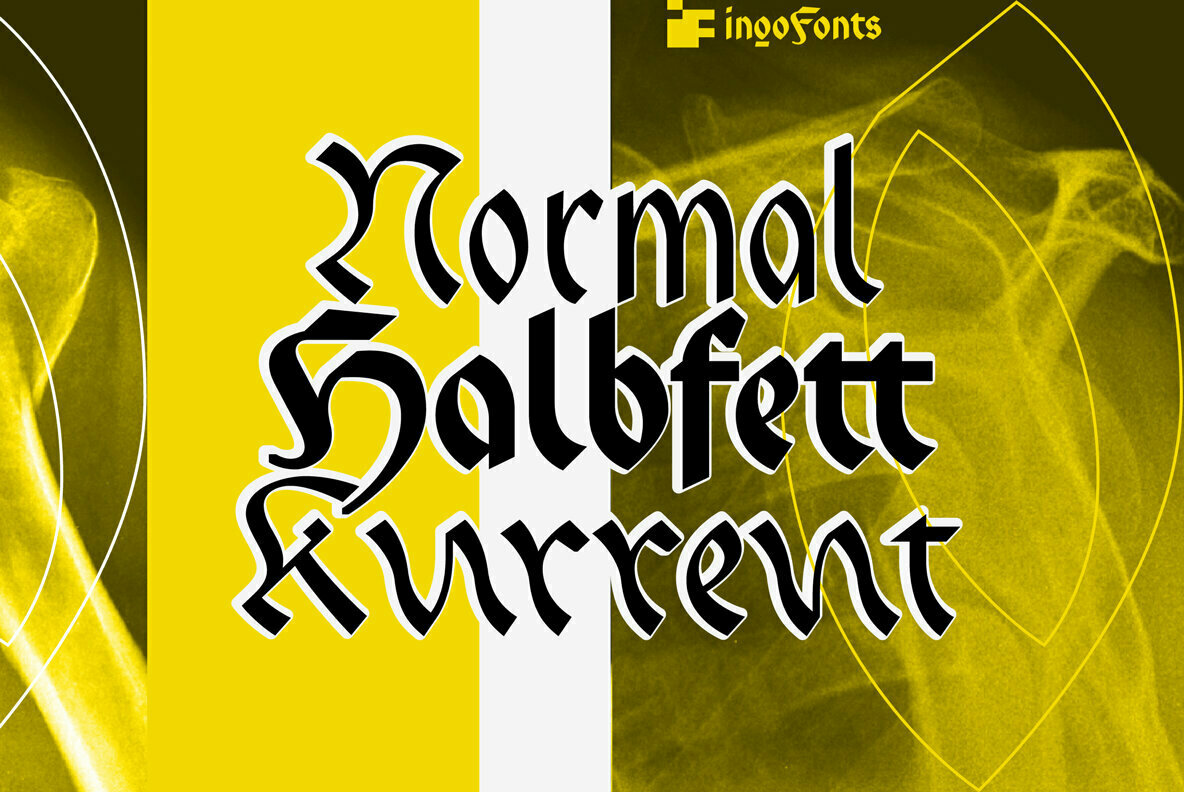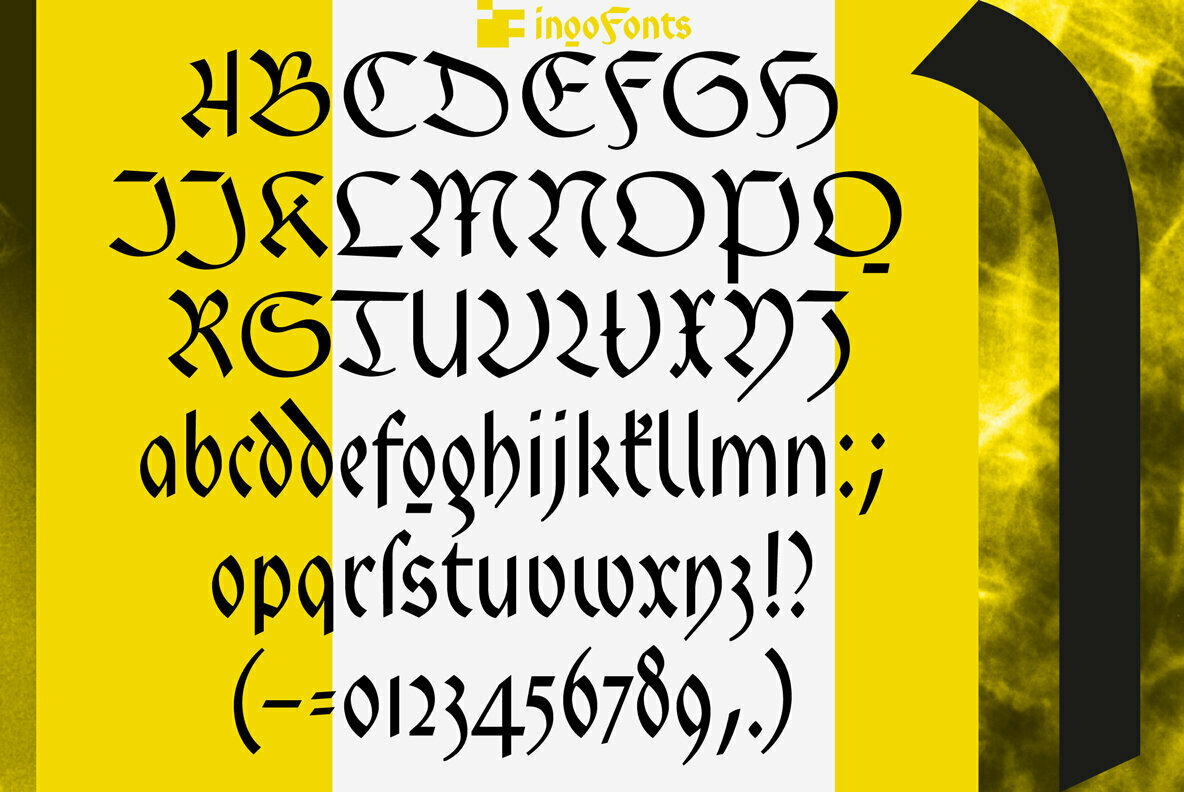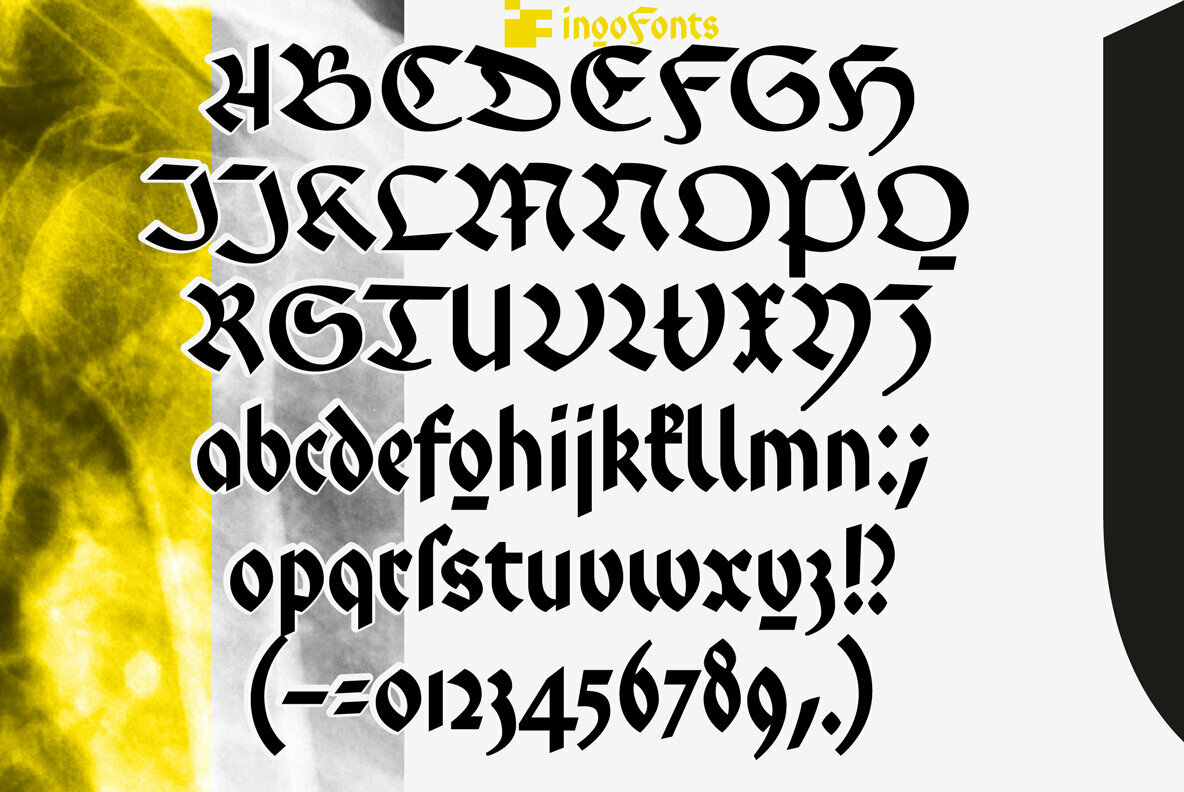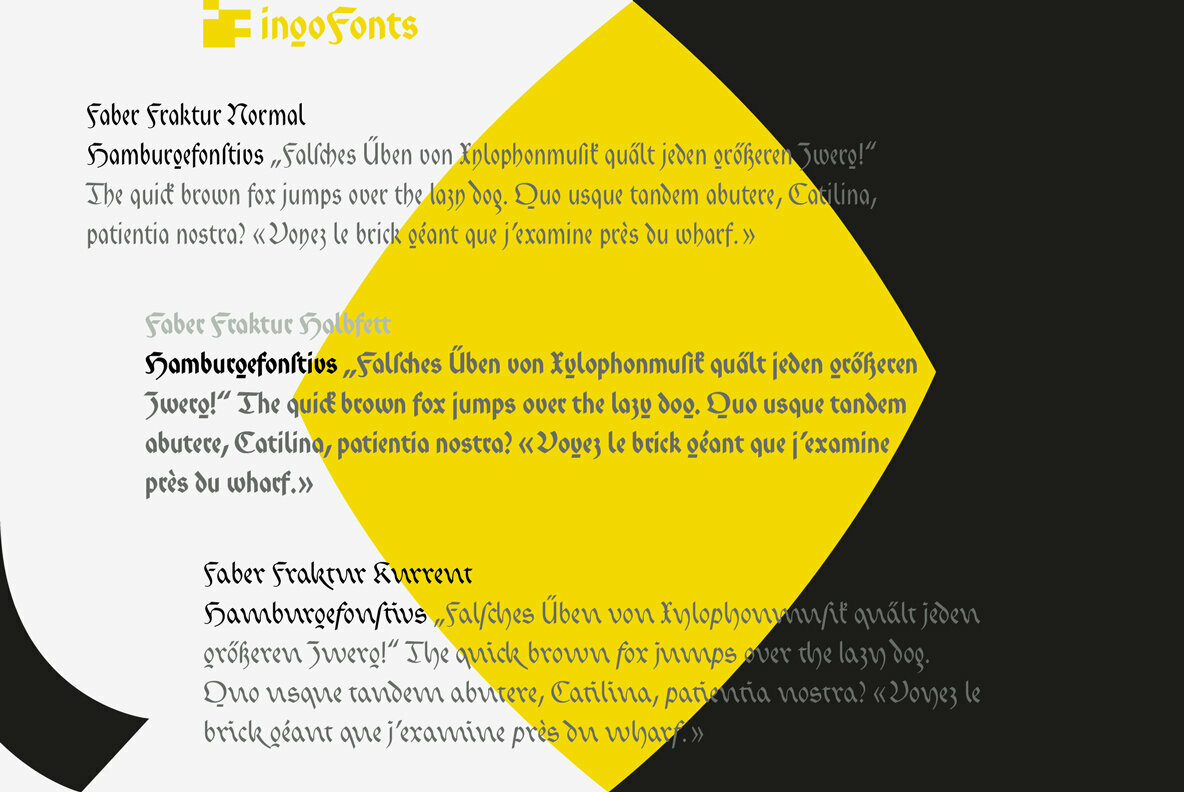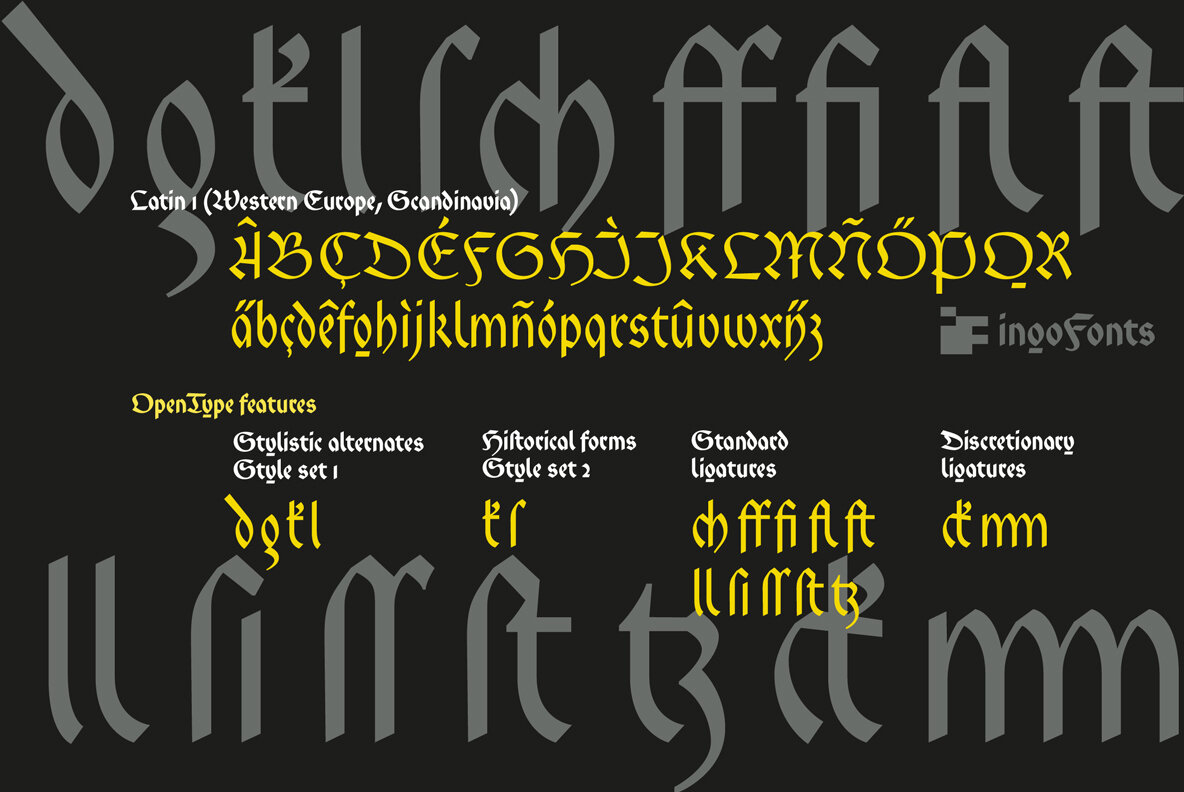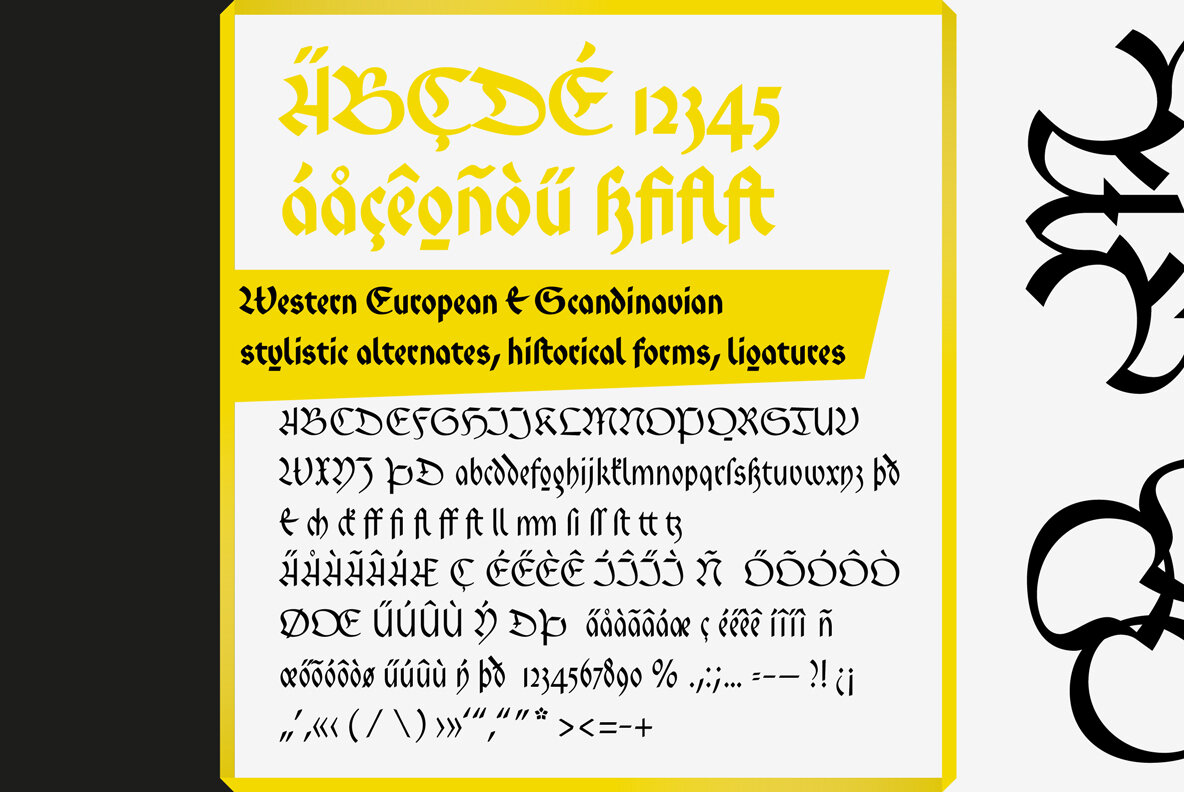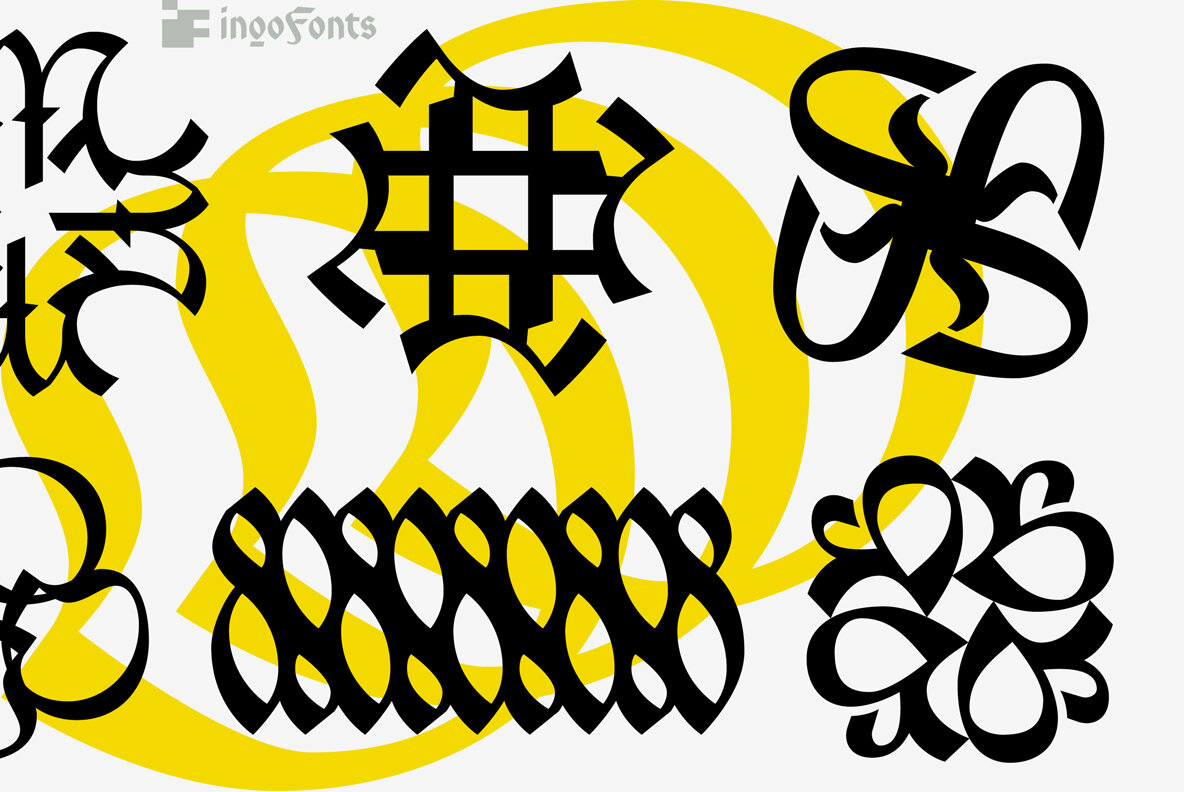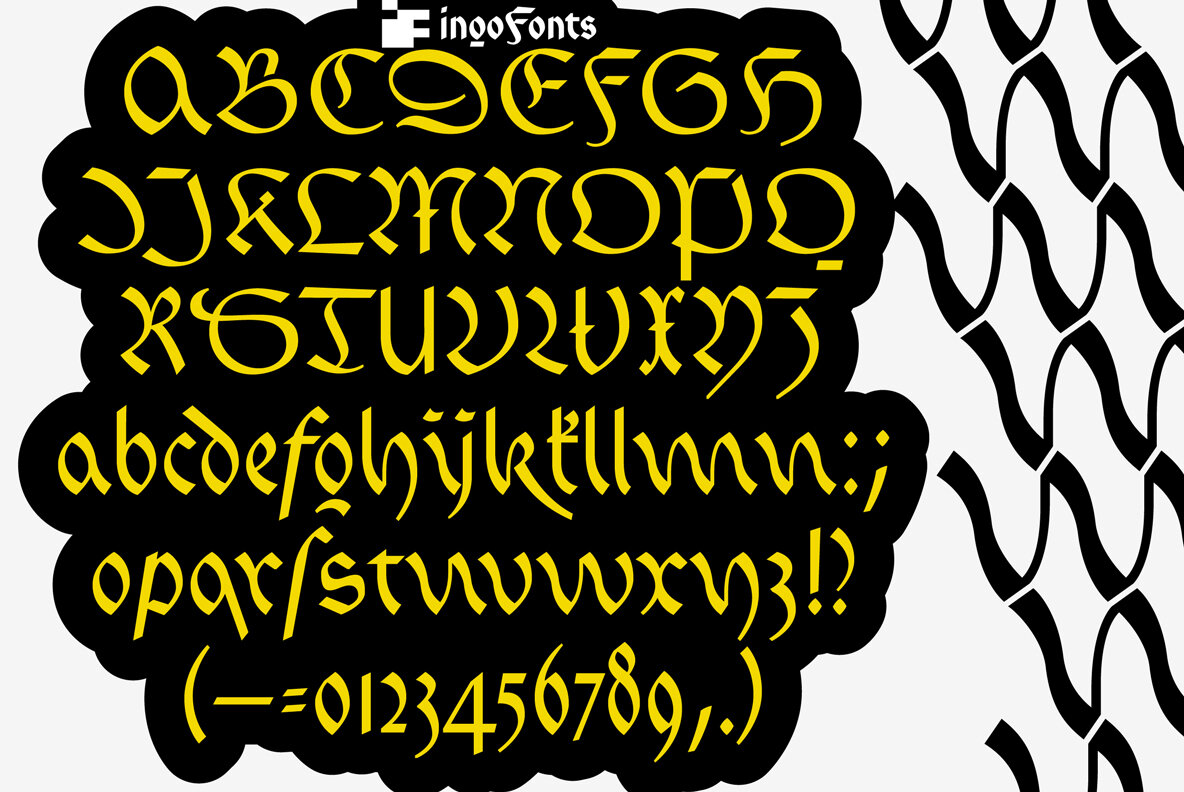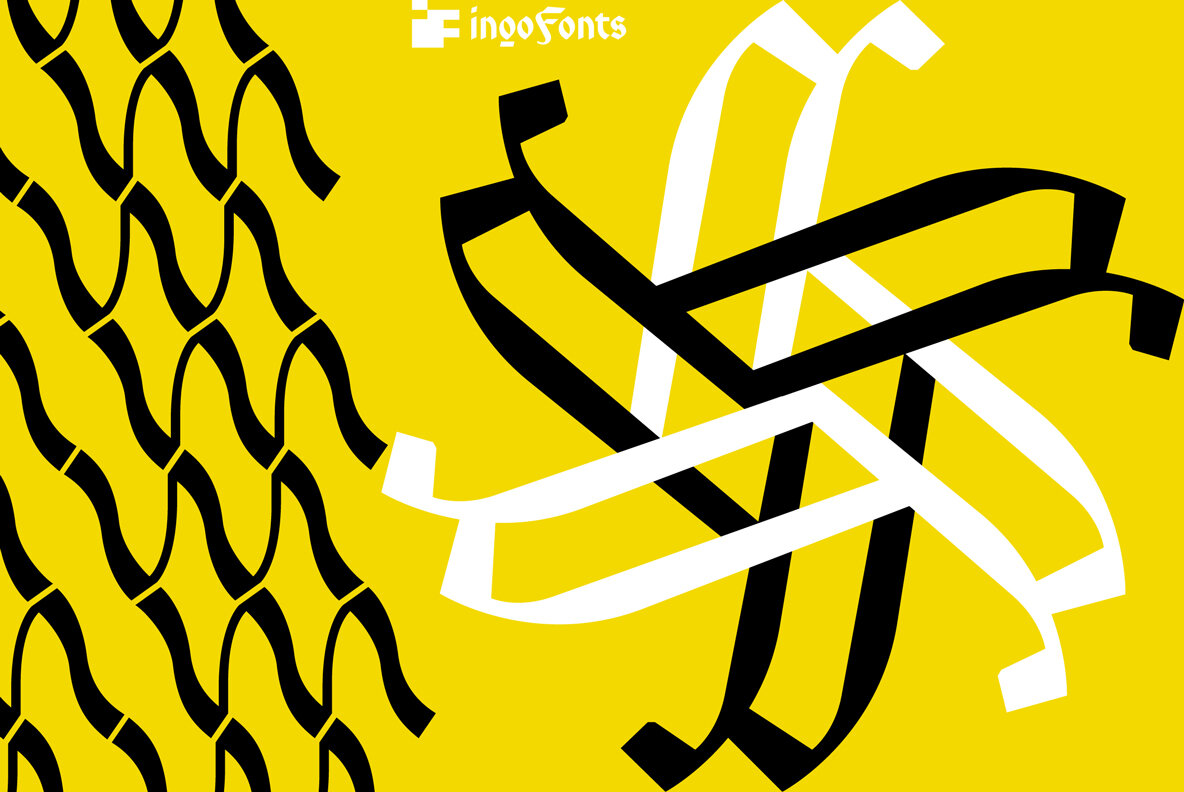
Faber Fraktur Font
A ”modern“ black-letter, so to speak.
Composed of a few basic elements with a wide-quill ductus.
Faber Fraktur was based on the idea that it must be possible to create a modern black-letter type. The typeface is ”constructed“ according to the same principles as a script without serifs: as few varied basic forms as possible, omission of frills which make the type difficult to read and repetition of similar forms.
The typical contrasting strokes of the original handwritten black-letter script are retained nonetheless. The elements of this typeface were even pre-formed with the quill.
All characters are reduced to their basic skeleton. The fanciness and manifold ”breaks“ or fractures typical of black-letter typefaces are considerably reduced to just a few essentials.
Faber Fraktur is a very legible type perfectly suitable for long texts. It does not appear nearly as foreign and archaic as the old black-letter fonts. The capital letters especially have a charm of their own radiating a kind of playfulness in spite of their severe form.